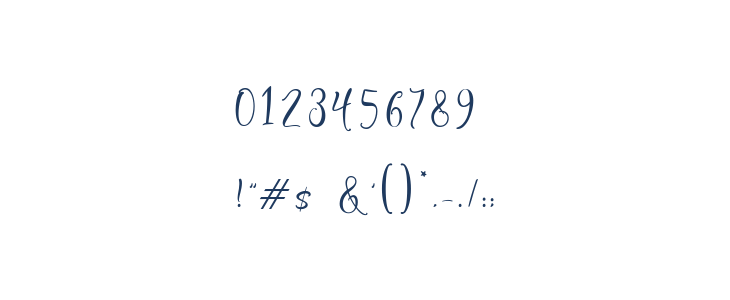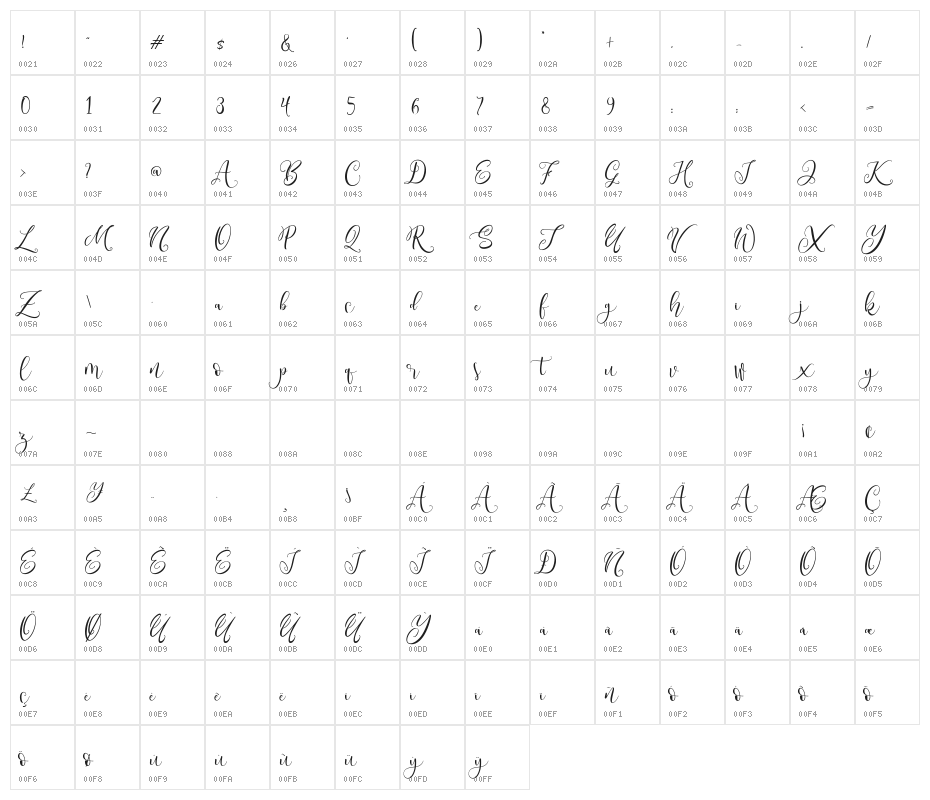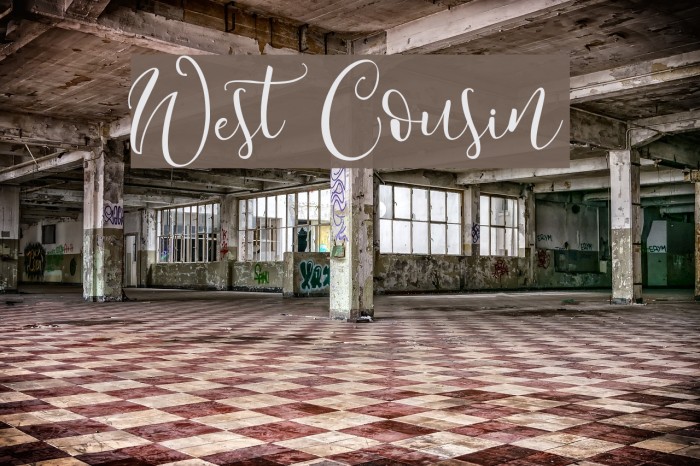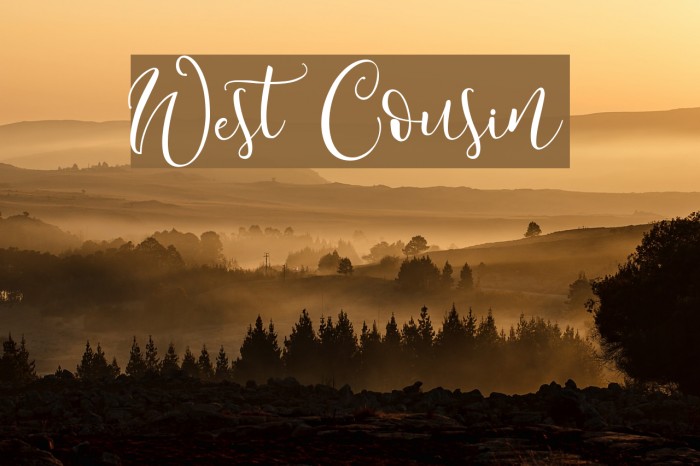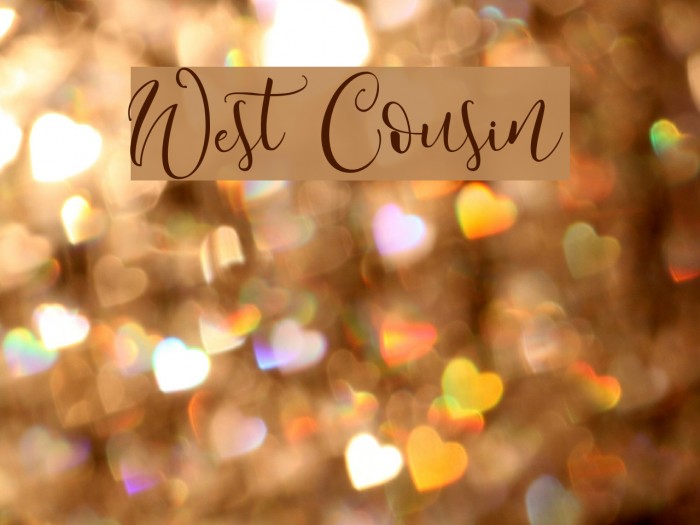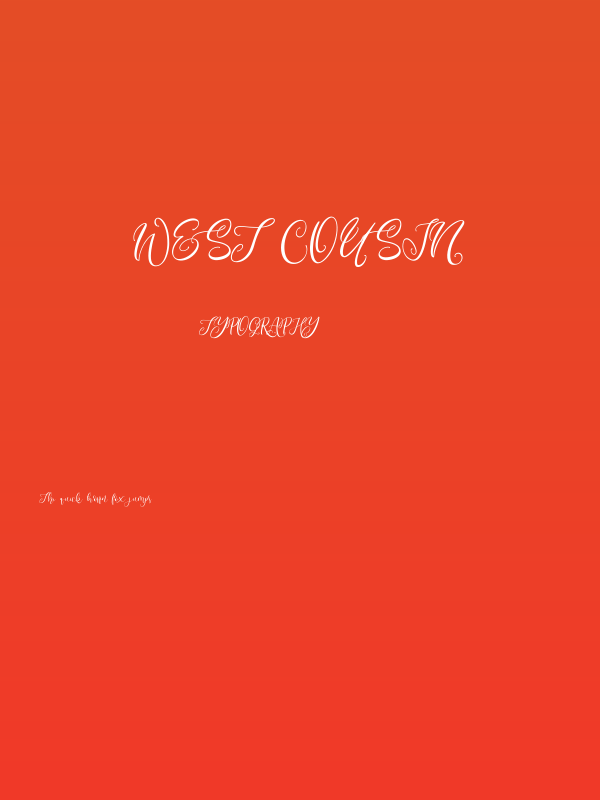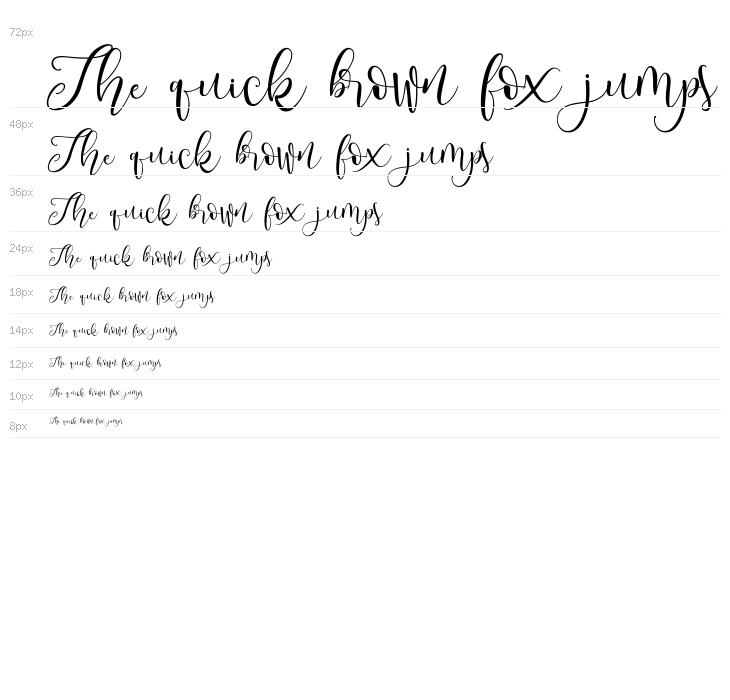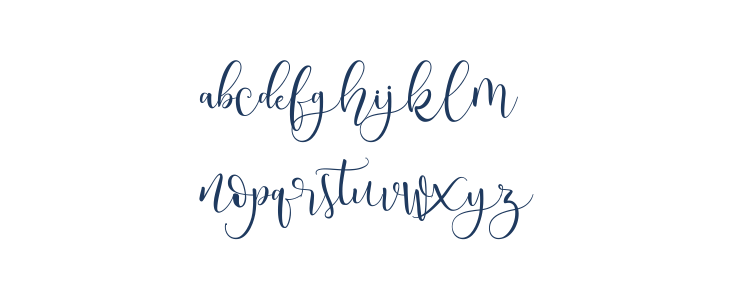
West Cousin Font
West Cousin Description
This font is a beautifully crafted script typeface that exudes elegance and sophistication. The letters are characterized by their flowing, cursive style with intricate swirls and loops, giving it a highly decorative appearance. The uppercase letters are particularly elaborate, featuring extended flourishes that add a touch of grandeur. The lowercase letters maintain a consistent style, with smooth connections between characters that enhance readability while preserving the artistic flair. Numbers and special characters are designed to match the overall aesthetic, ensuring a cohesive look across all text. This font is perfect for projects that require a touch of elegance and creativity.
| Proposed Projects | Ideal for wedding invitations, greeting cards, branding, and any design that requires a sophisticated touch. |